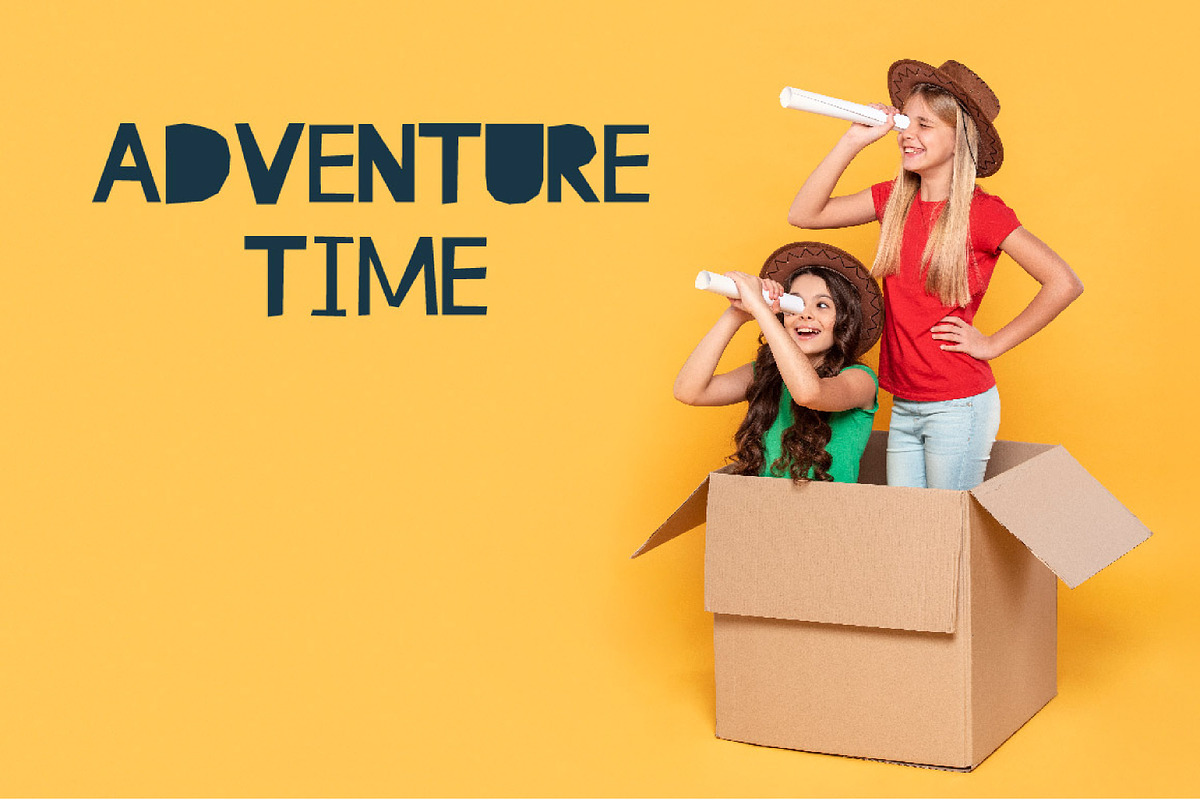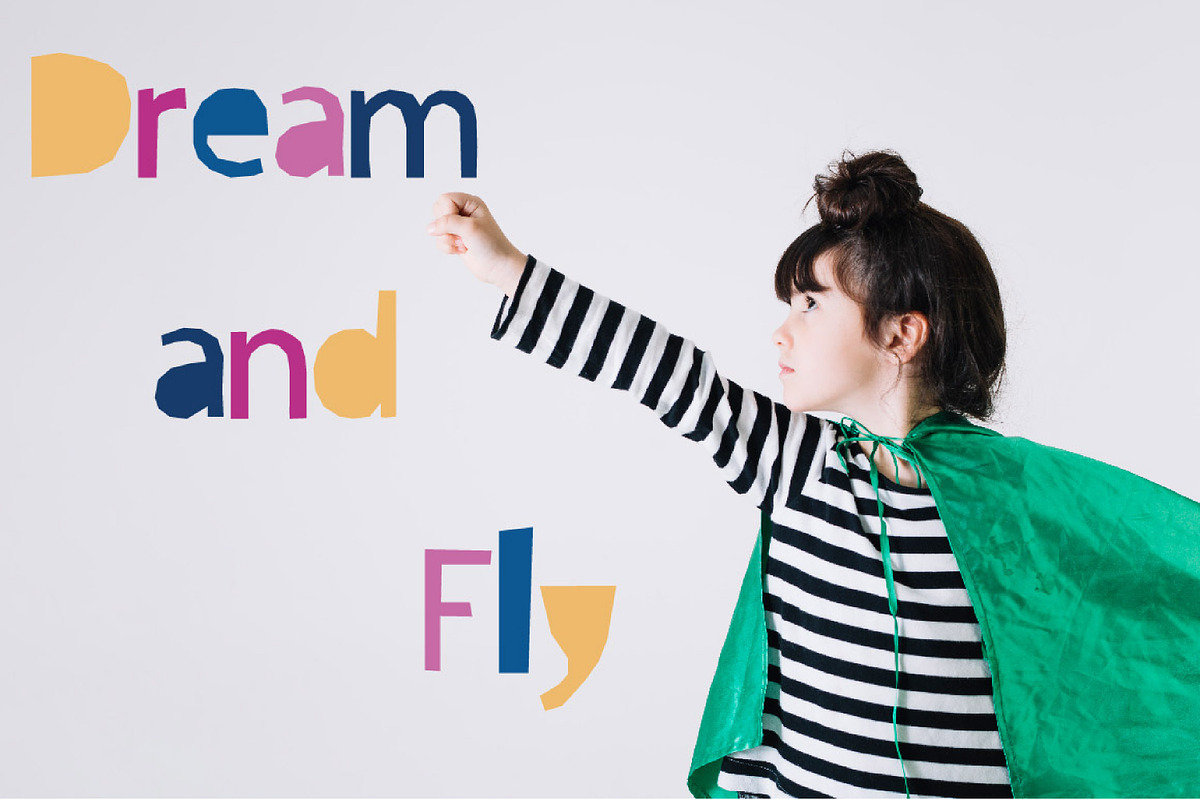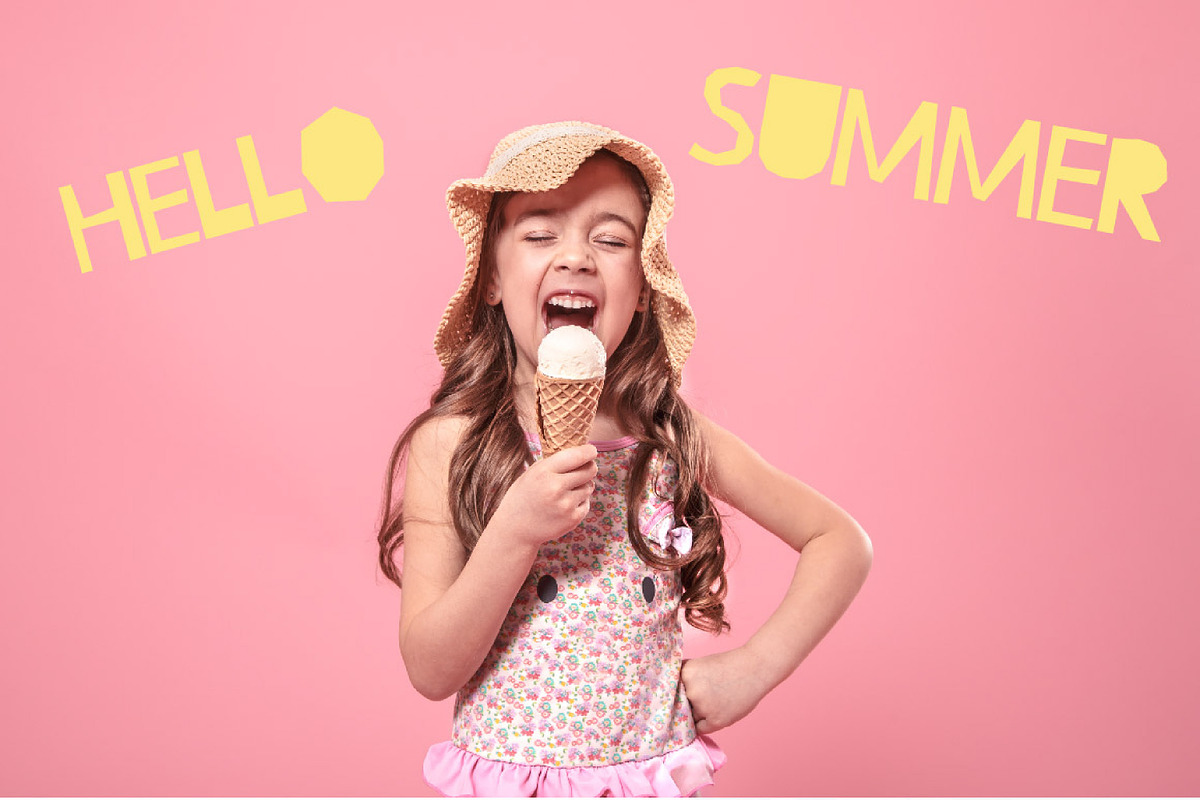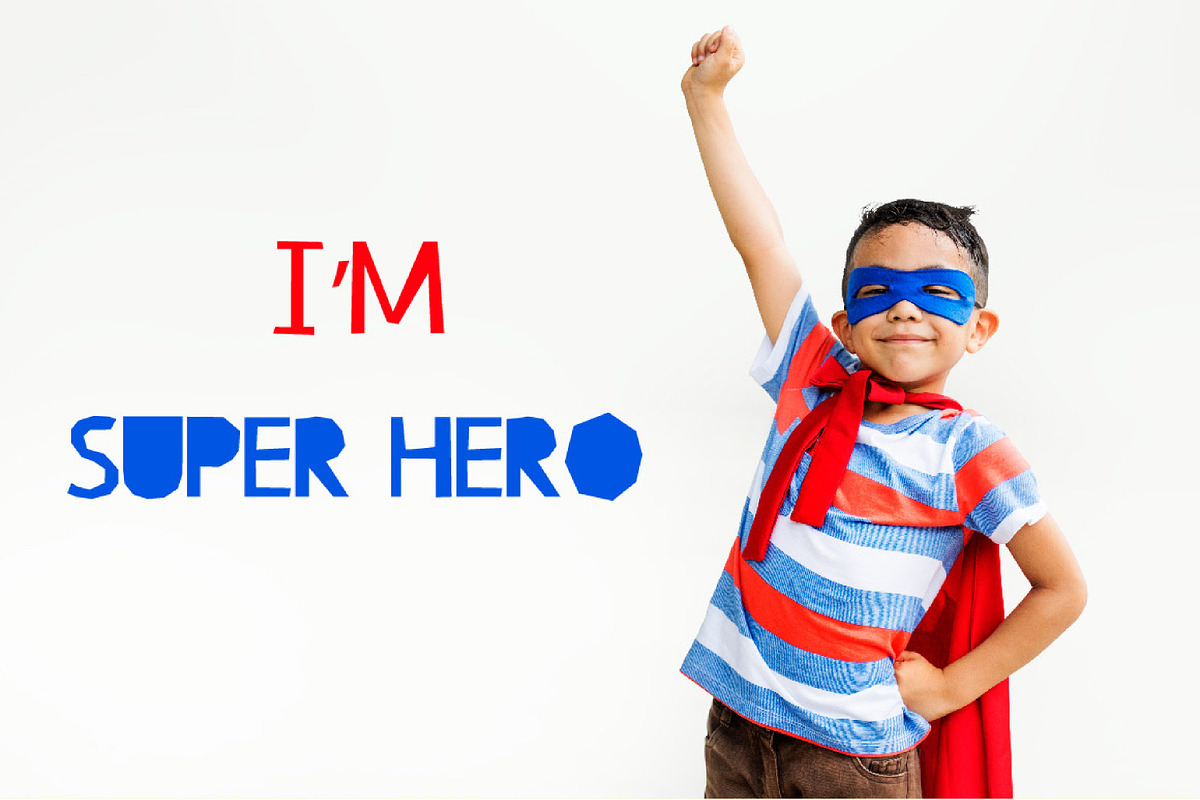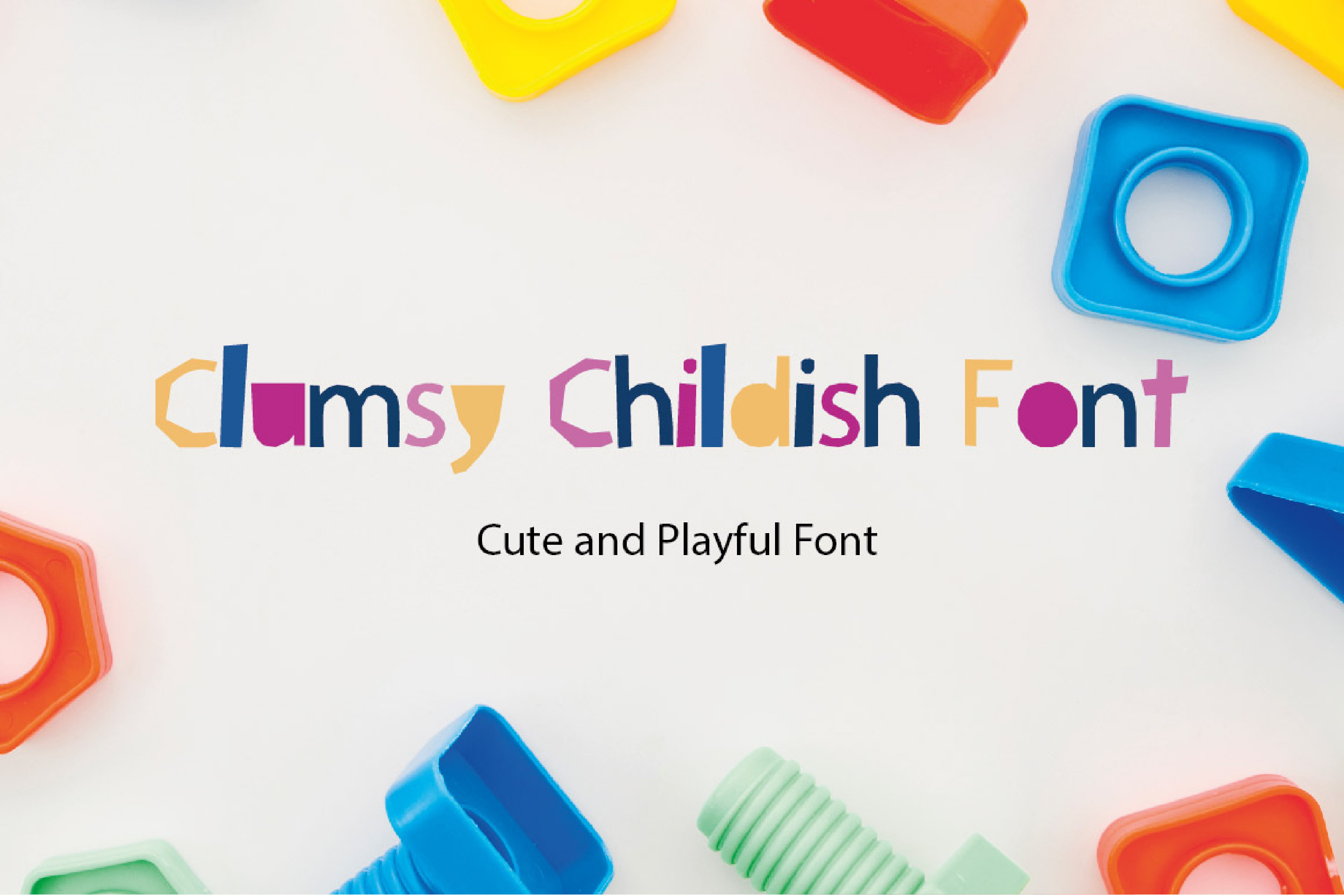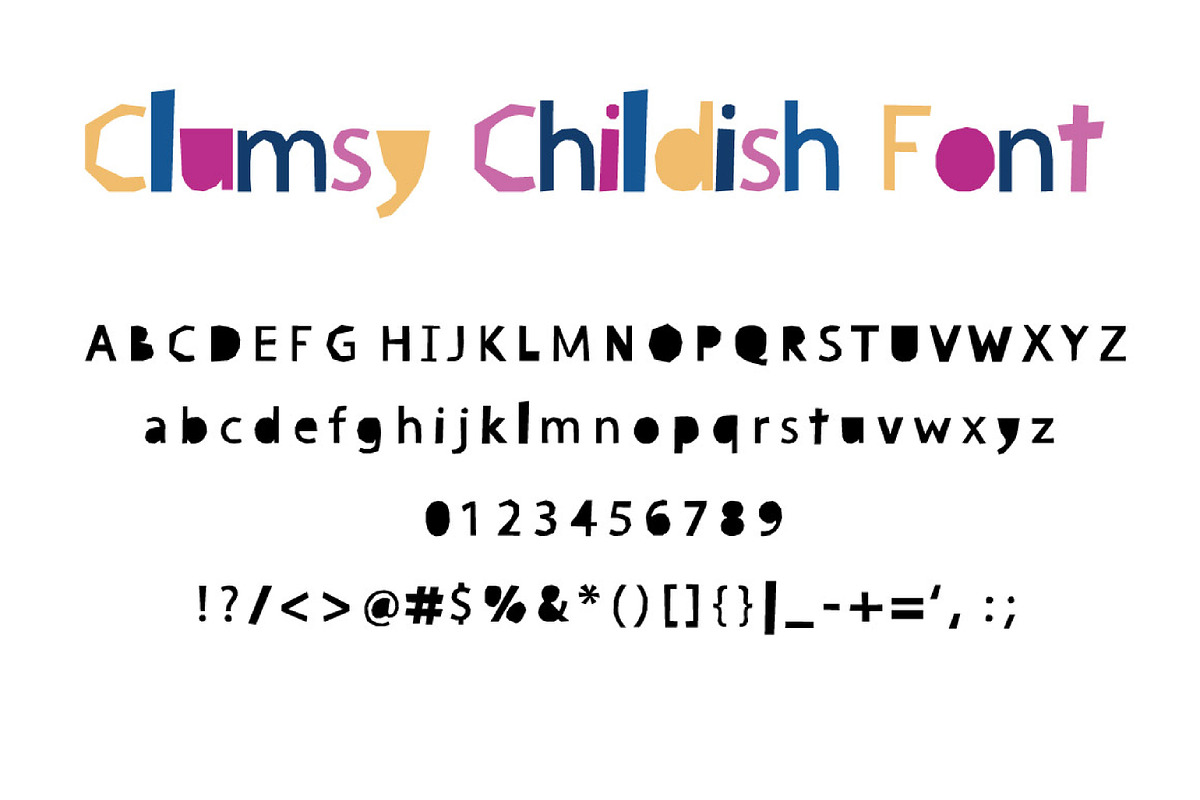
Clumsy Childish Cutout font
Clumsy Childish Font is lovely cute multipurpose handmade font, suitable for many project children book, quotes, logo , heading , title etc